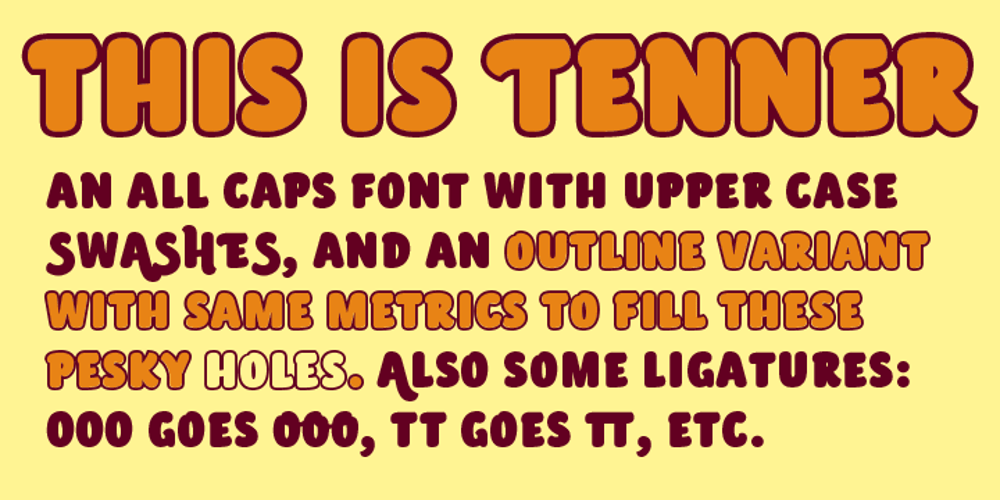
Tenner Font Family was designed by Tomi Haaparanta and published by Suomi. Tenner contains 2 styles and family package options. All-caps script with swashes in upper case, and ligatures. And outline with same metrics, so the oulines fit snuggly on top of the book-variant.